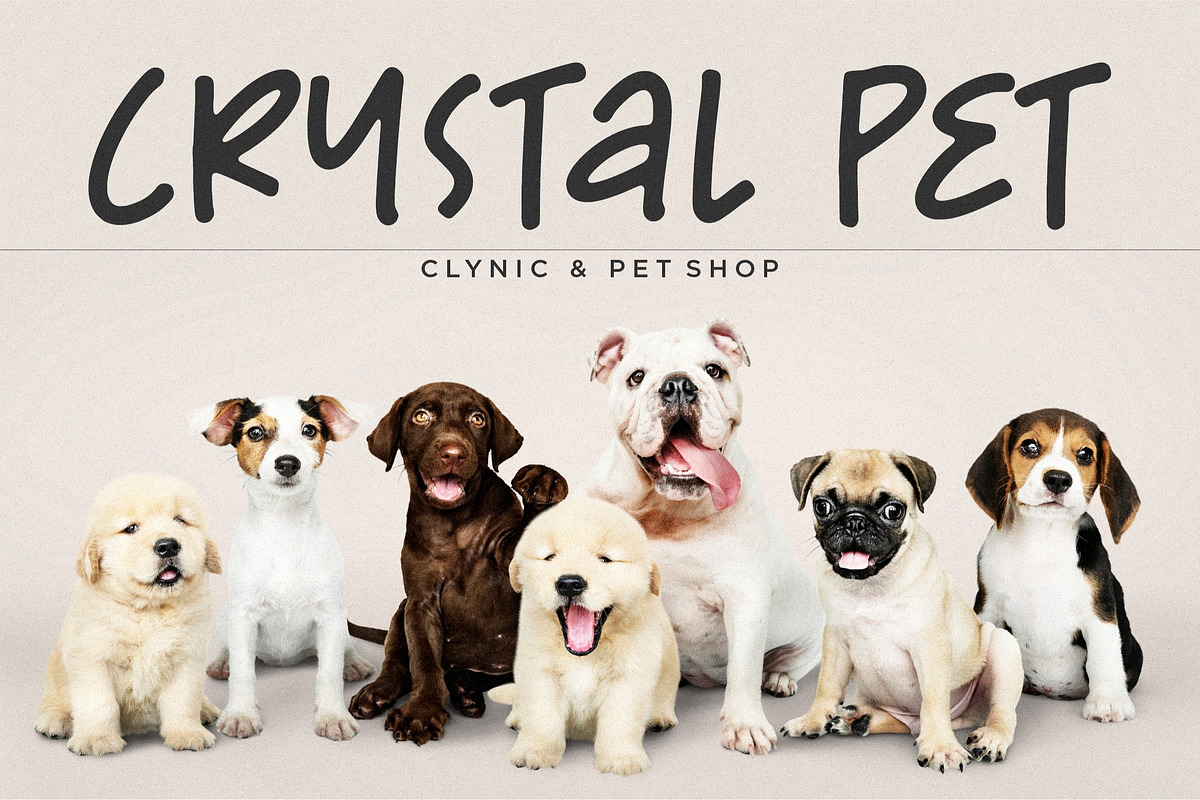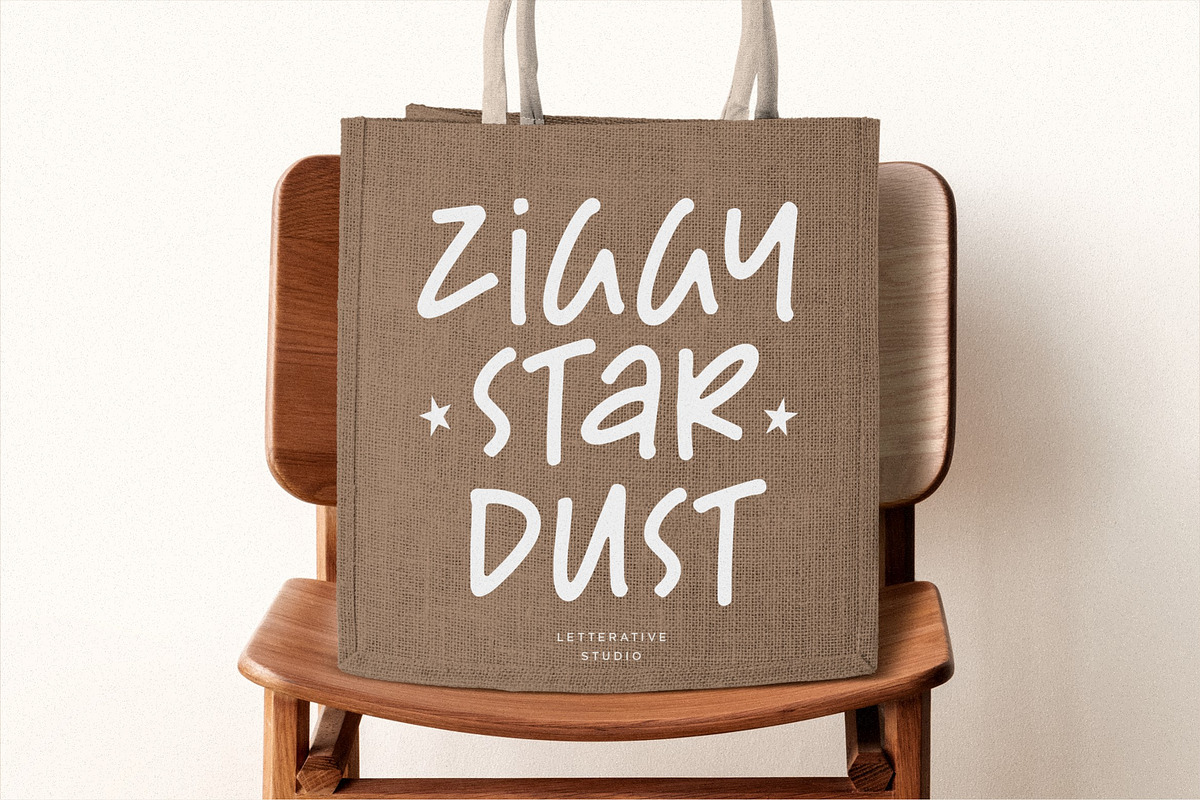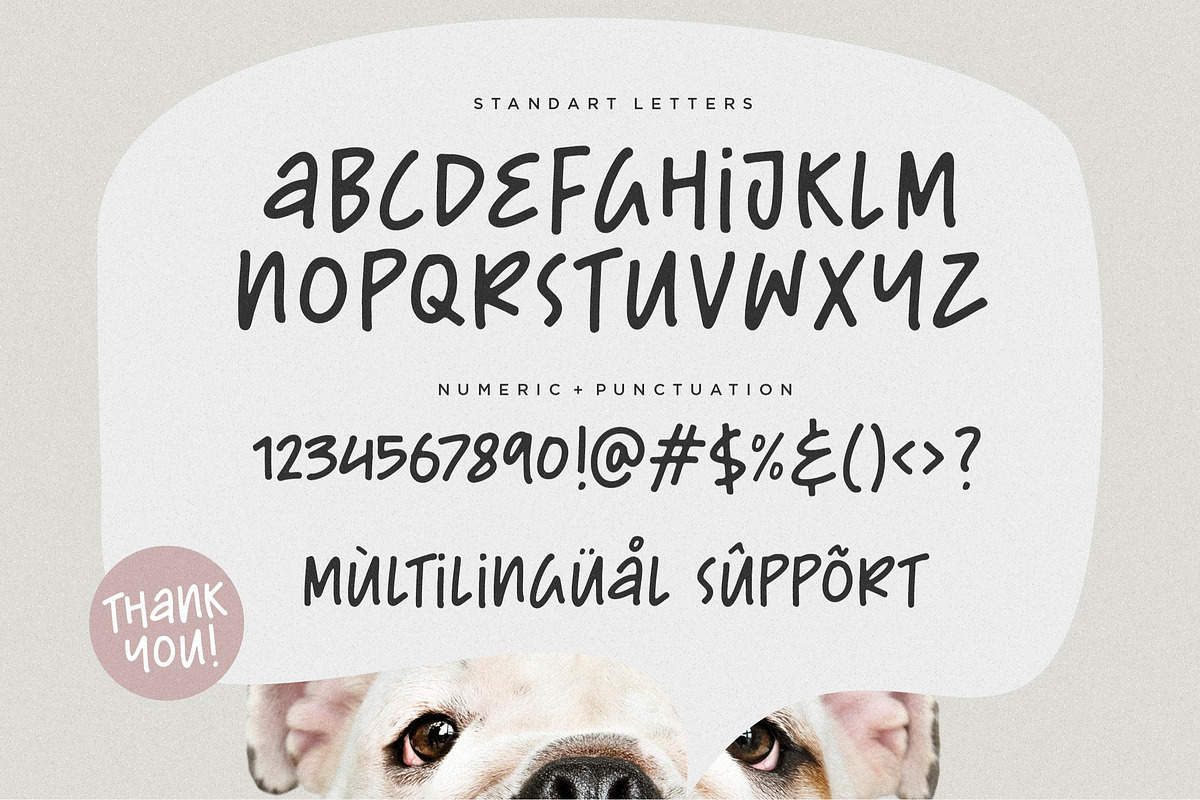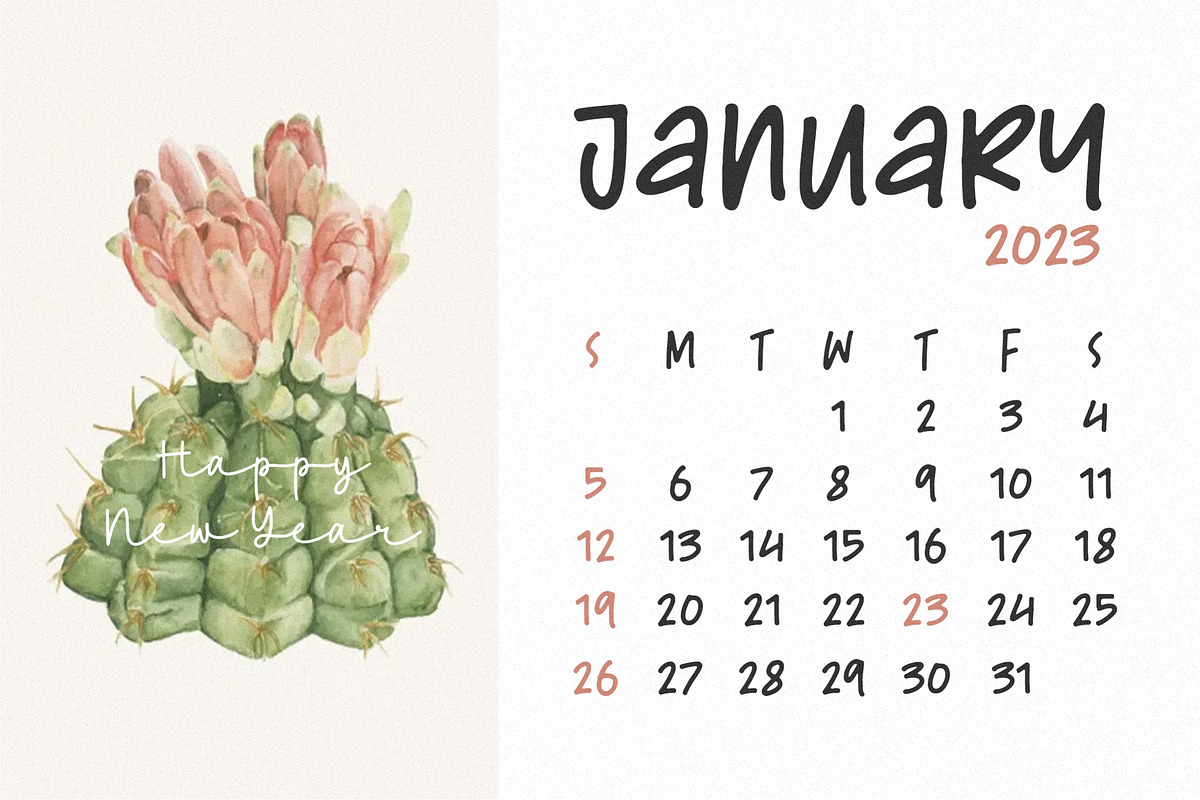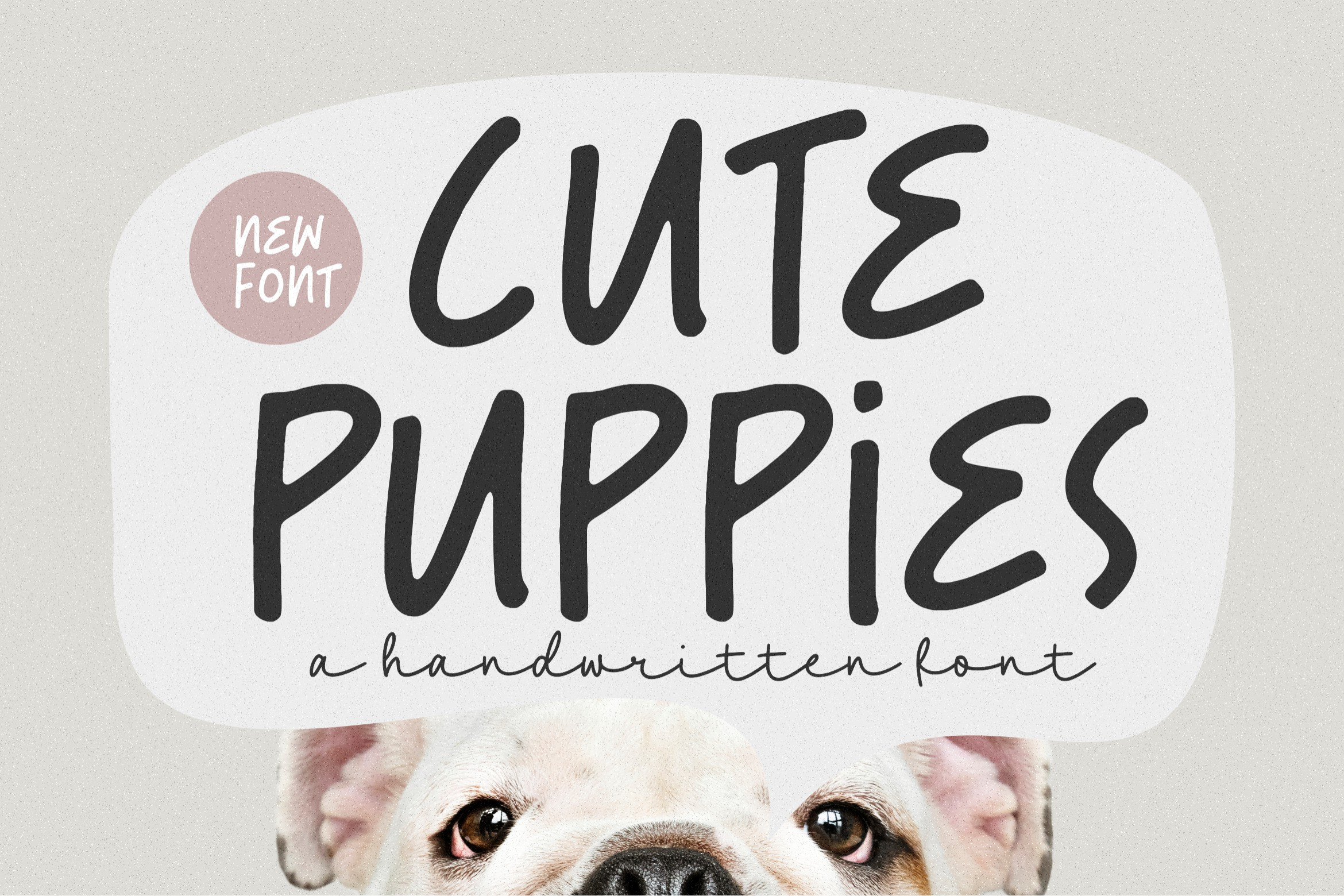
Cute Puppies - Handwritten Font
Introducing by Letterative Studio : Cute Puppies Font
Cute Puppies is a Handwritten Font.
This font only has uppercase letters. Perfect for creating logos, greeting cards, posters, packaging and so much more! Its charming and warm character will help you give your project a truly unique feel.
- ALL CAPS Font